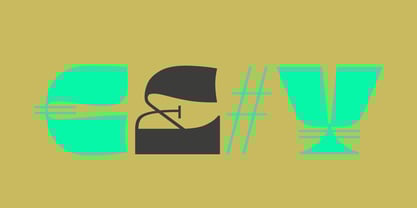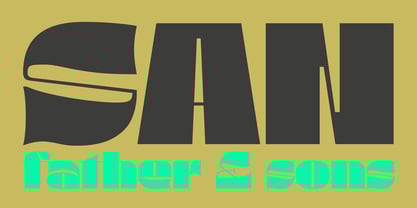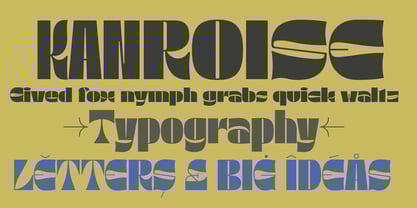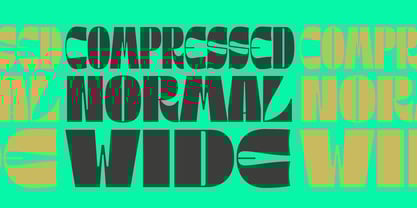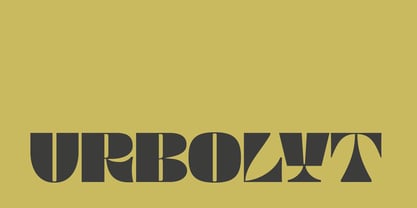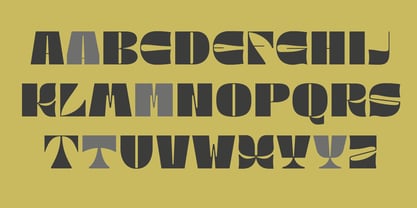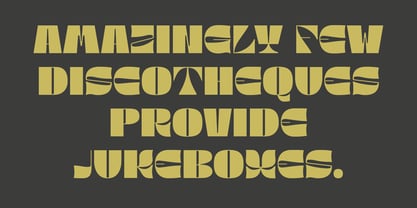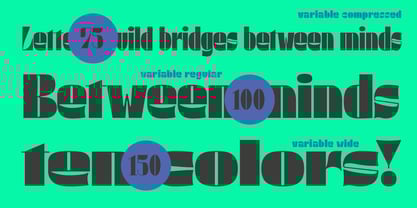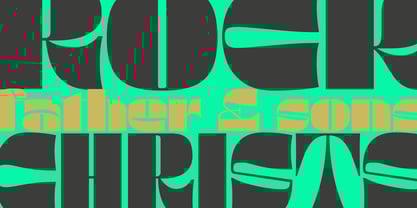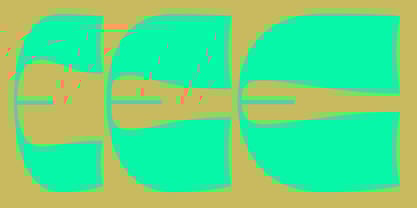
Urbolyt
The Urbolyt Font Family was designed by Olivier Gourvat and published by Mostardesign. Urbolyt contains 4 styles and family package options. More about this family
Urbolyt is a variable typeface that asserts its presence through a striking contrast, where geometric rigor dialogues with organic forms. Each letter is a unique construction, a monument where sharp angles meet unexpected curves. Characters like N, A, or M rise like imposing skyscrapers, while others, such as X, C, or E, evoke the lightness of natural movements. This subtle tension between solidity and delicacy gives the typeface a strong, singular identity.
Designed to give strength and character to words, Urbolyt VF is the ideal font for impactful headlines, brand logos, event posters, and all projects requiring a strong, memorable visual identity. Thanks to its variable version, it offers a wide range of widths from 75% to 150%, allowing designers to play endlessly with word density and transform a simple headline into a true celebration of freedom and expression.